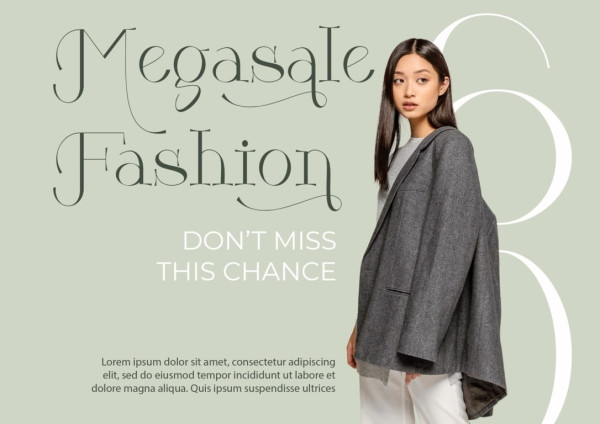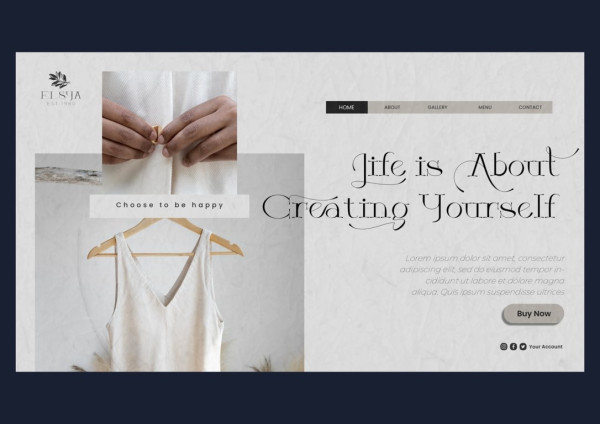
Anerka Font
Anerka Font, a sleek and sophisticated serif typeface that effortlessly blends modernity with elegance. With its clean lines and refined design, this font exudes a sense of timeless style and professionalism. Meticulously crafted by talented designers, Anerka is the ideal choice for your major projects, whether it’s branding, editorial design, or any other creative endeavor that requires a touch of sophistication and class. Elevate your designs with the understated beauty of Anerka.